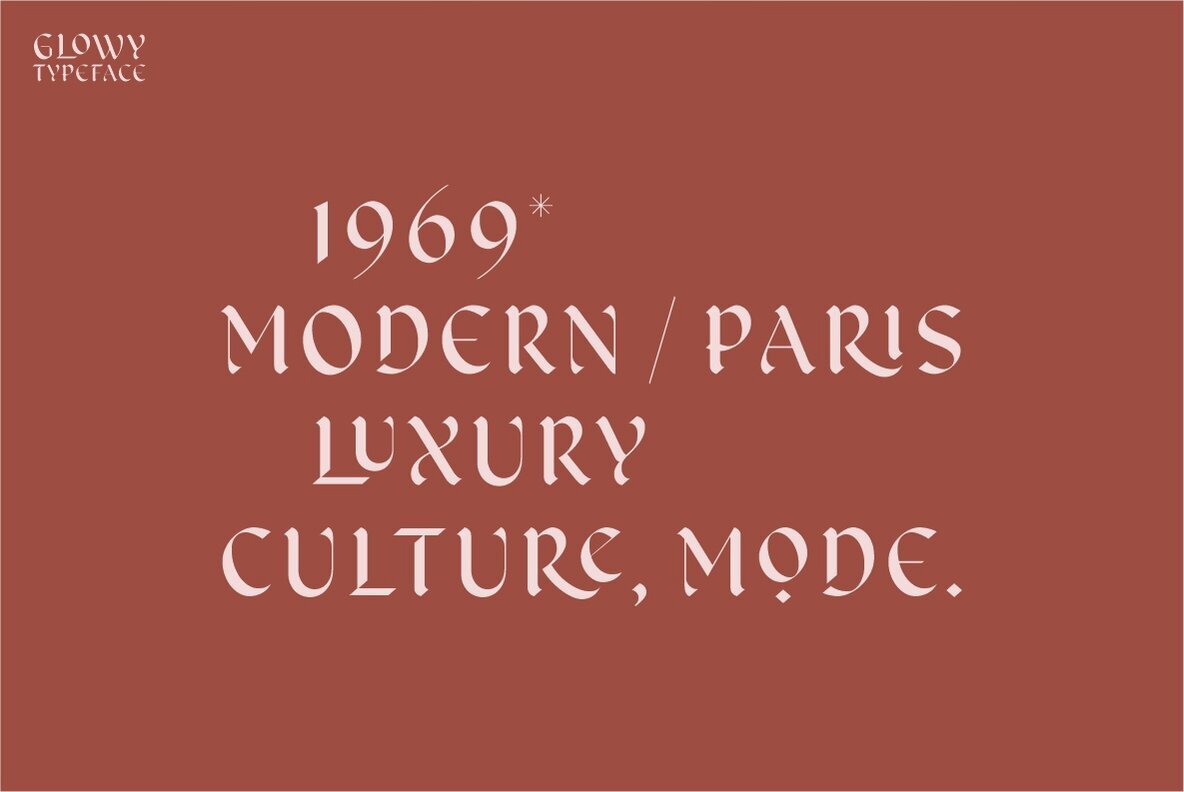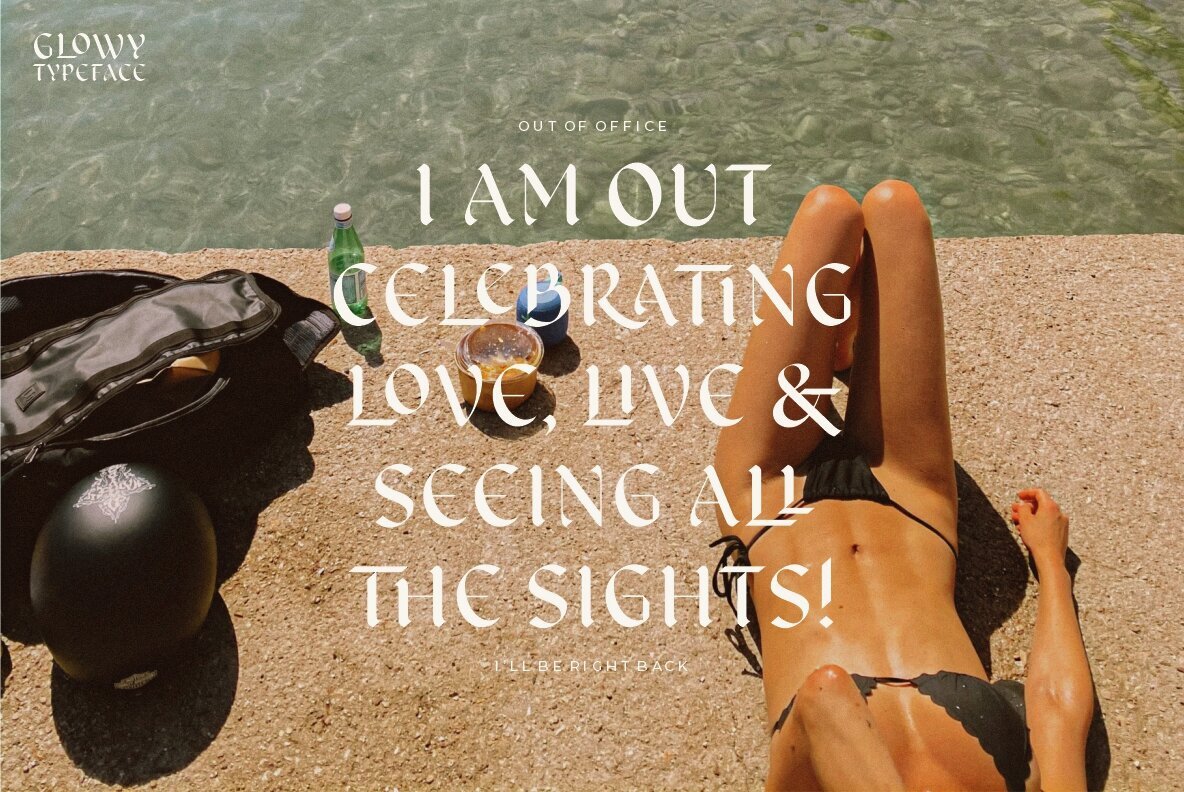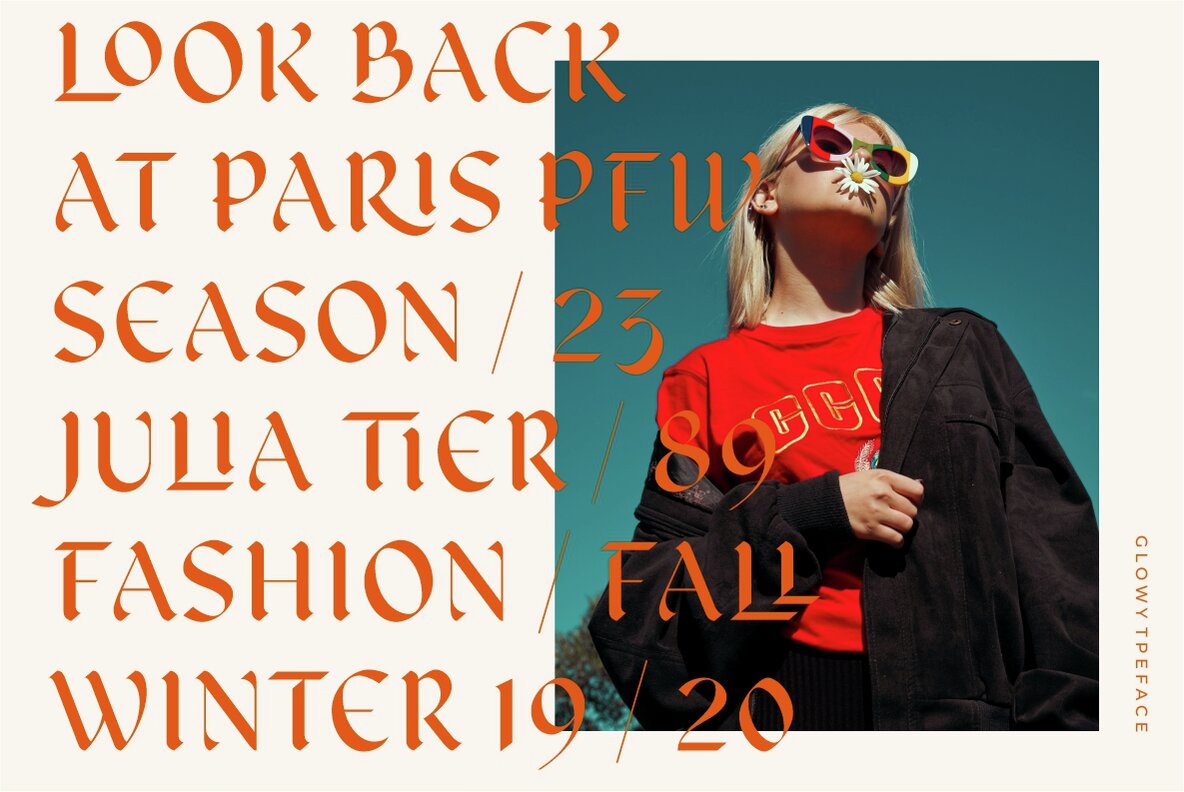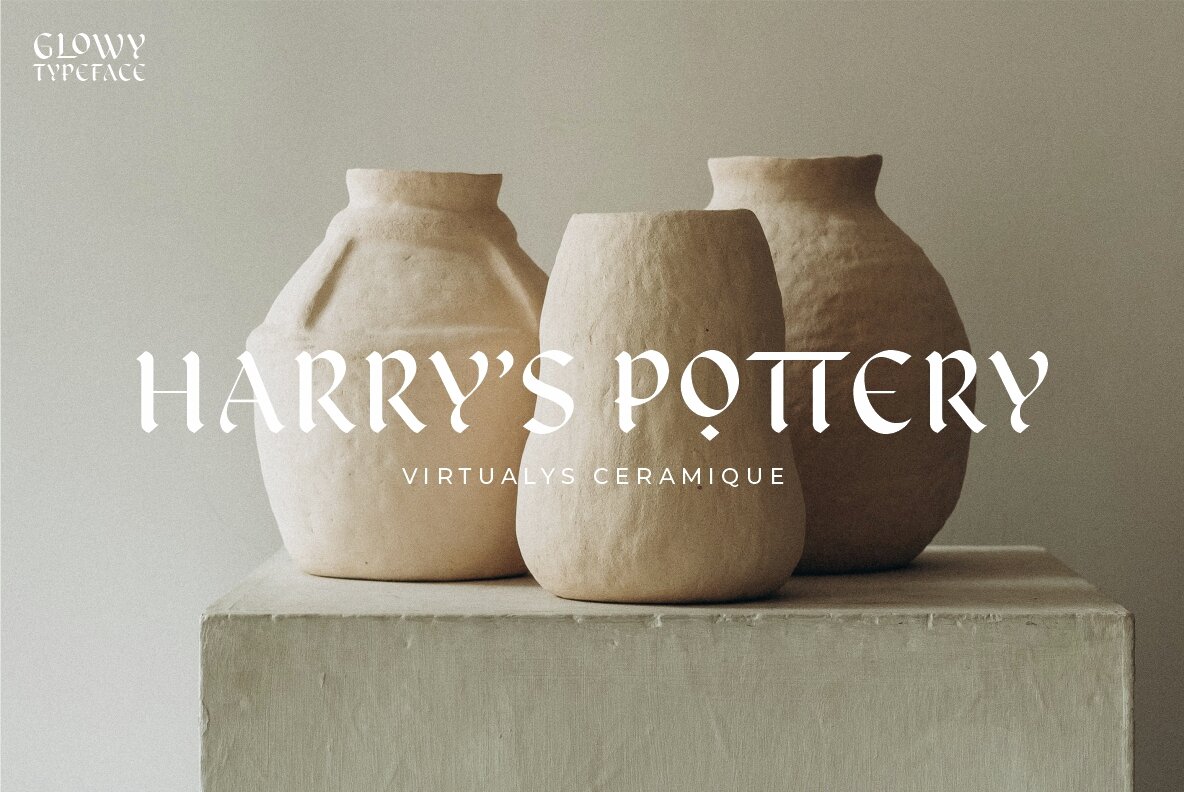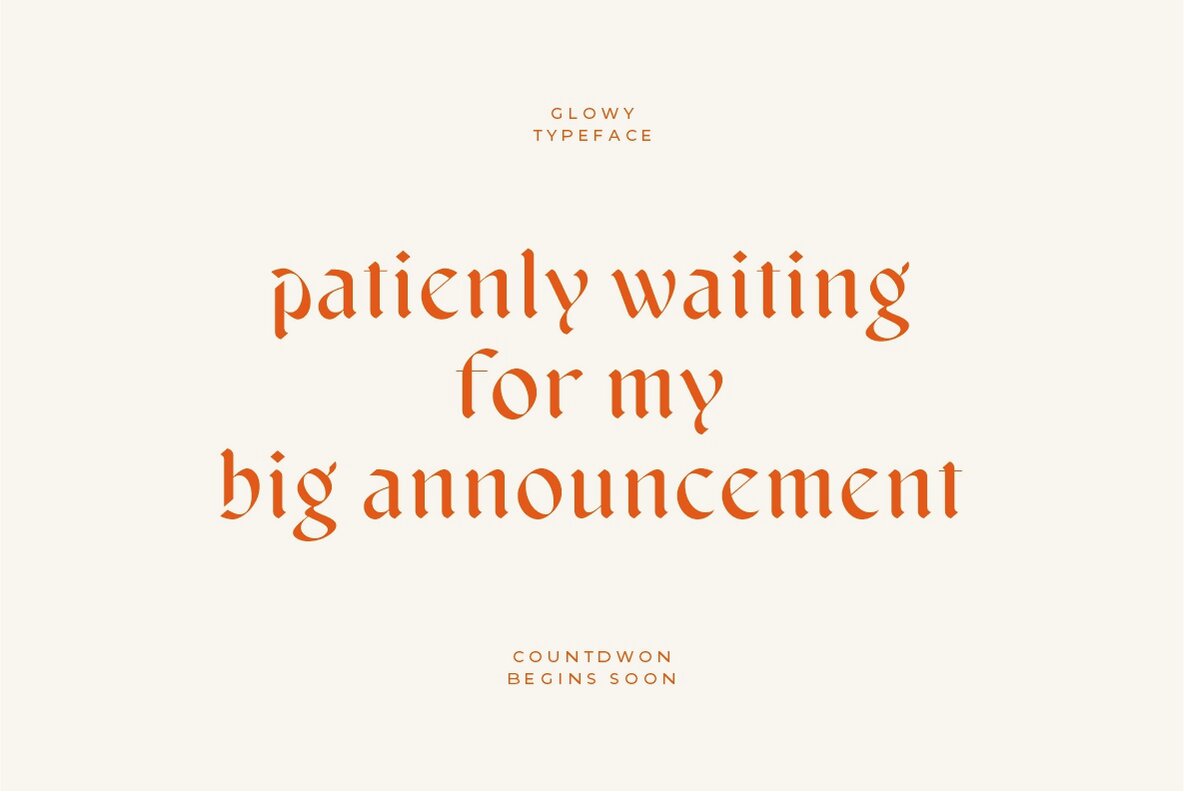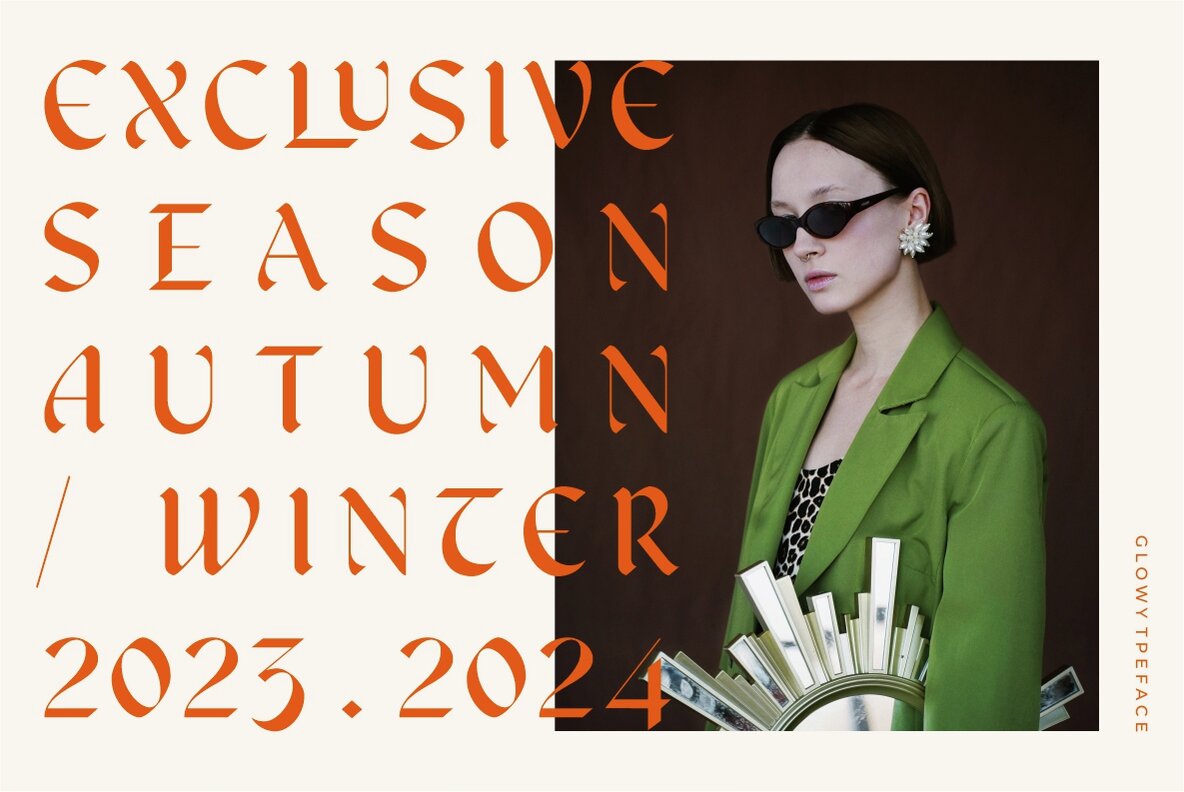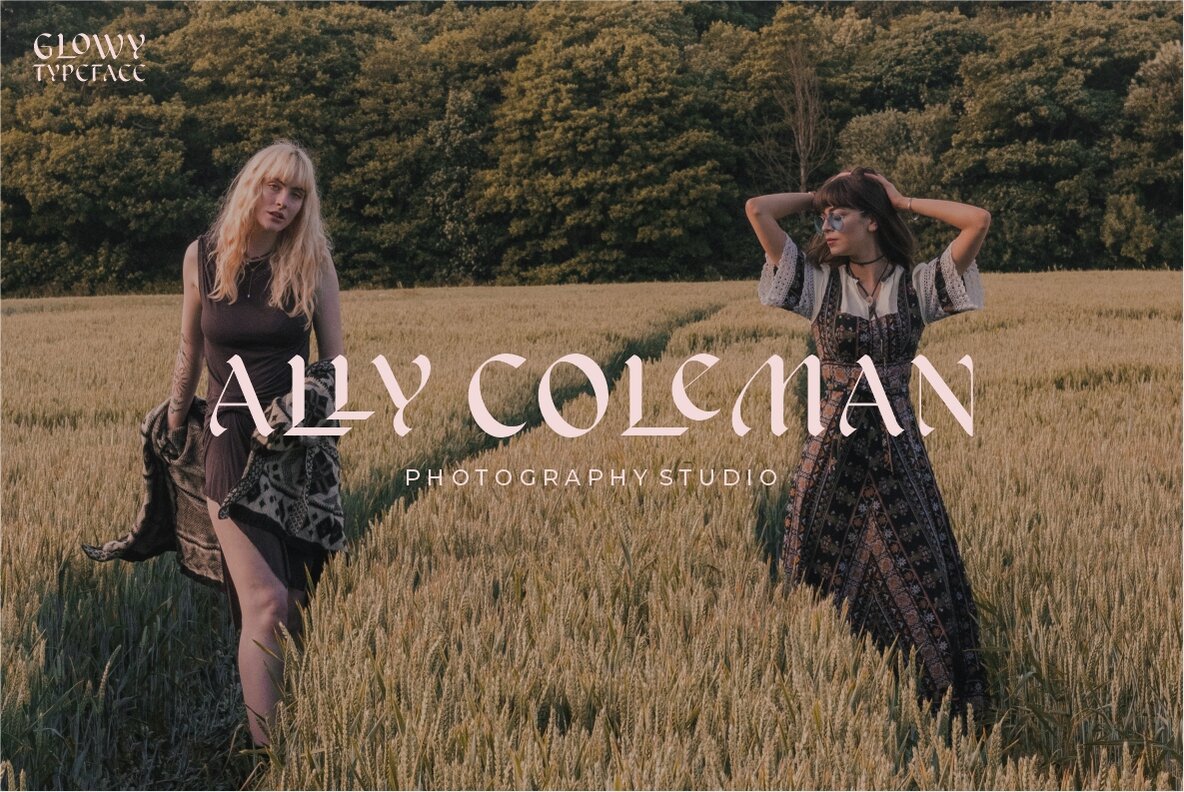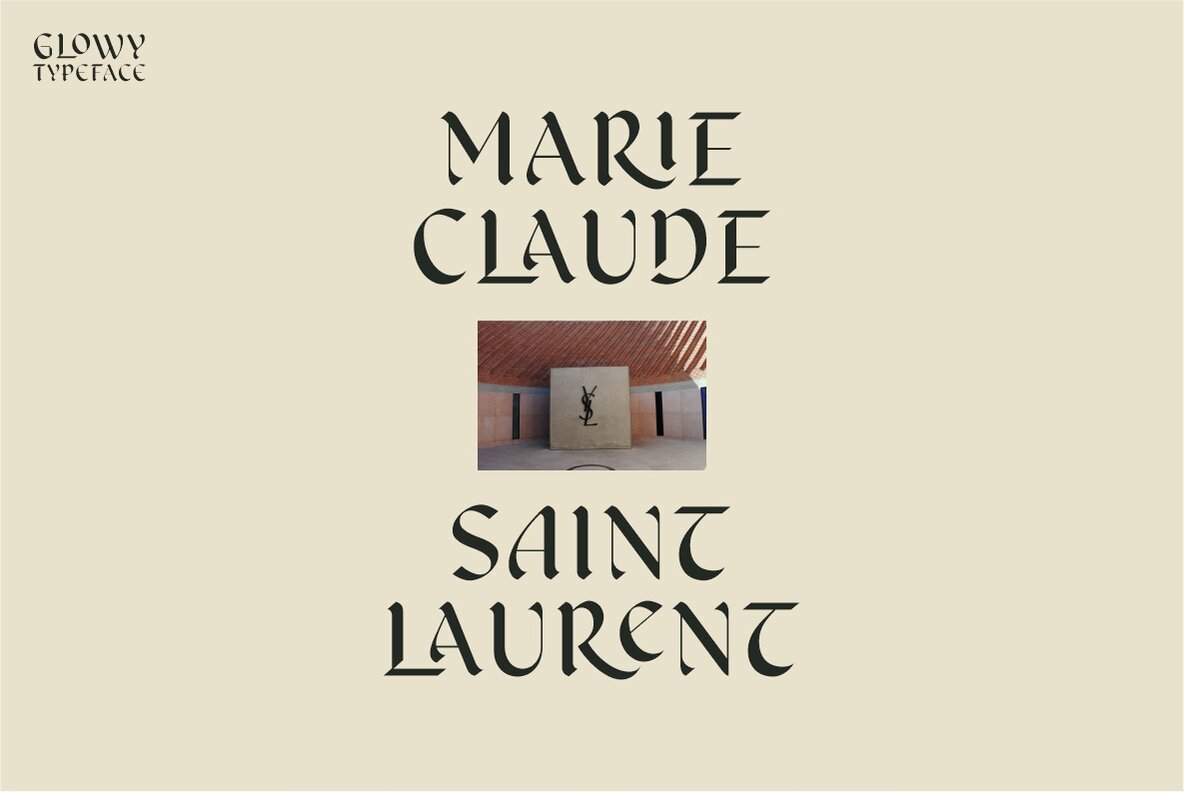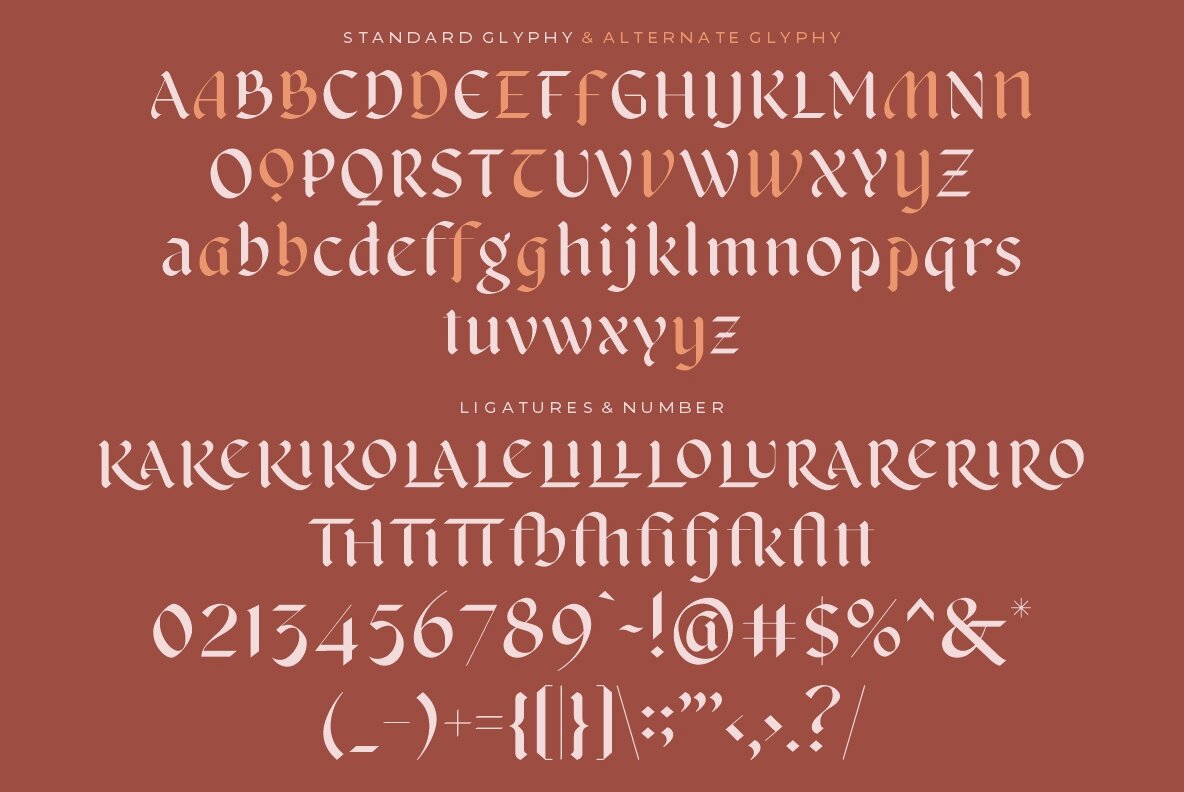
Glowy Font
Glowy Regular
The Glowy modern serif font masterfully combines contemporary aesthetics with an elegant flair, resulting in a visually striking and professional typeface. Its standout feature is the unique luminous quality of its bold characters, creating an impression of a soft glow that distinguishes it from standard serif fonts. This modern twist makes Glowy an exceptional choice for a range of design applications. Glowy modern serif is perfect for creating stunning logos, headlines, and quotes with its distinctive style.Glowy: A Modern Serif with a Luminous Touch